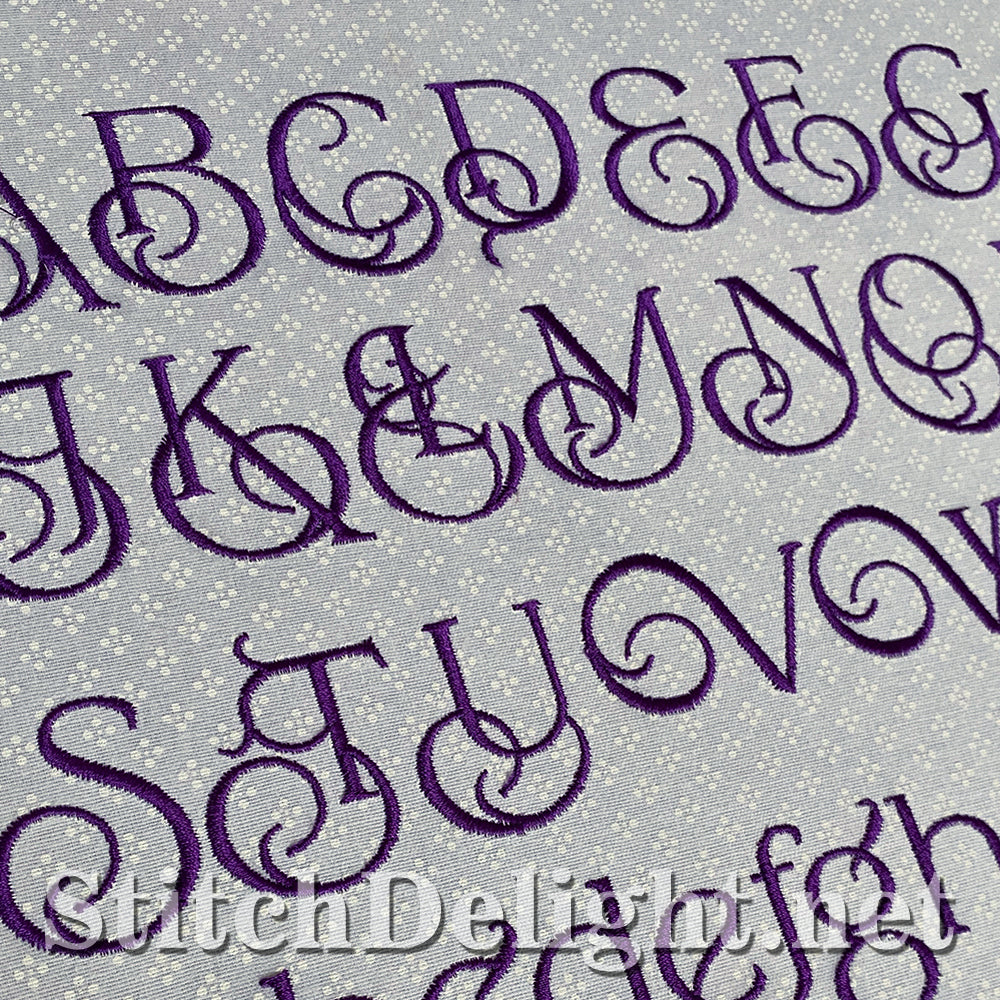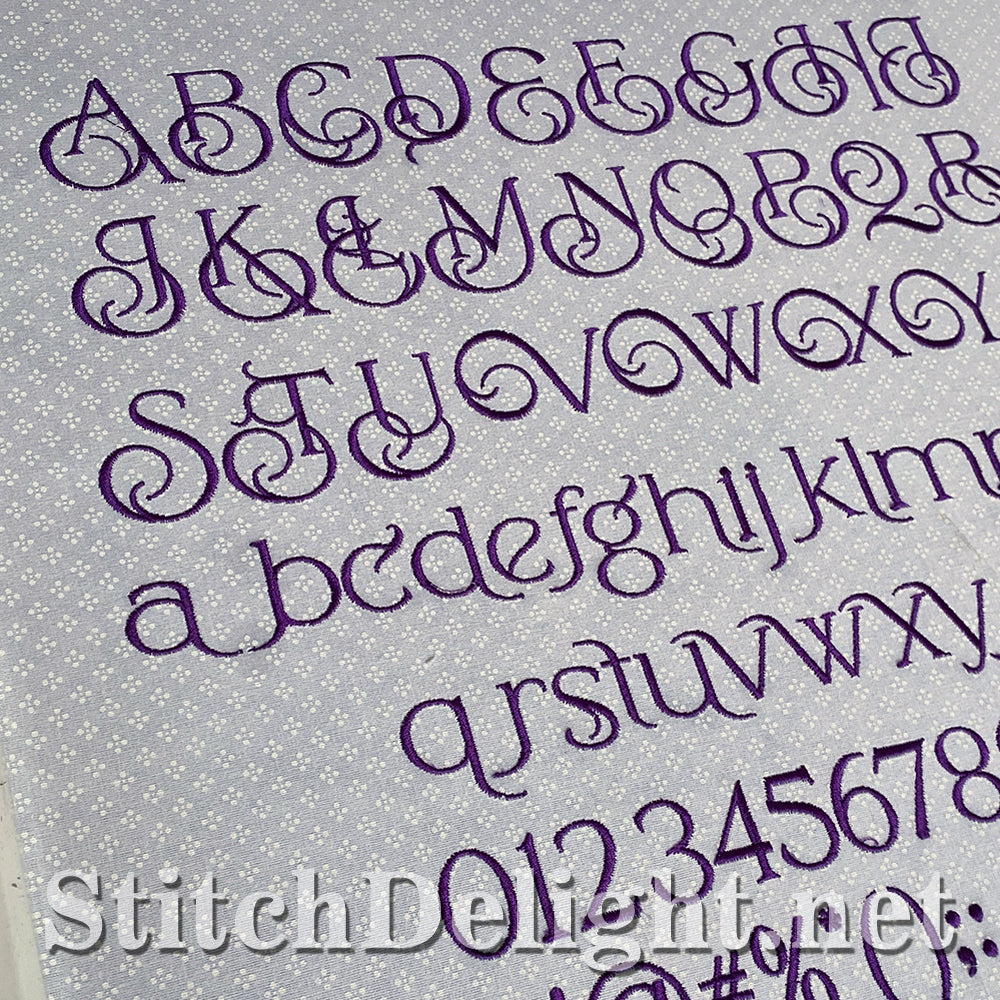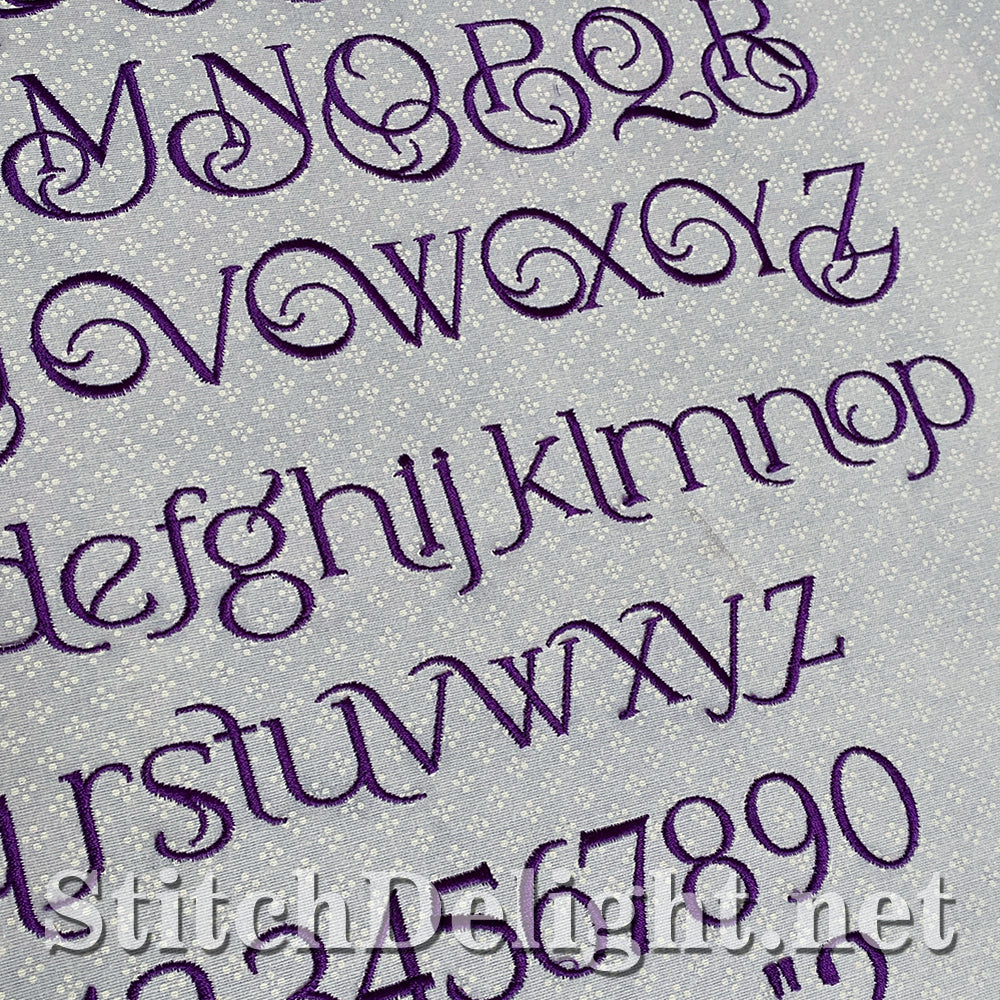
Made to match with our collectors font for October 2023 (SDS4270 Elegant Swan Font) this stunning font includes both upper and lowercase letters with the accompanying numbers and special characters.
The lowercase letters has an average height of about 1" and 1.5" for the uppercase letters.